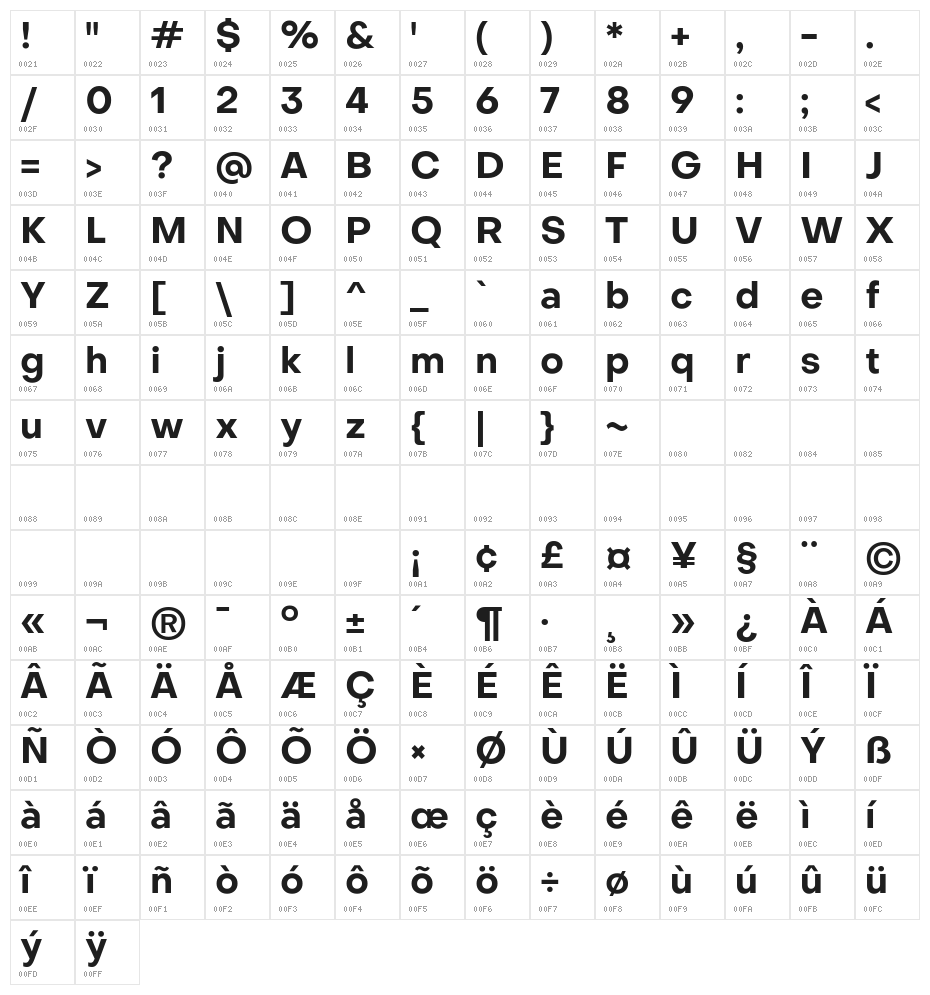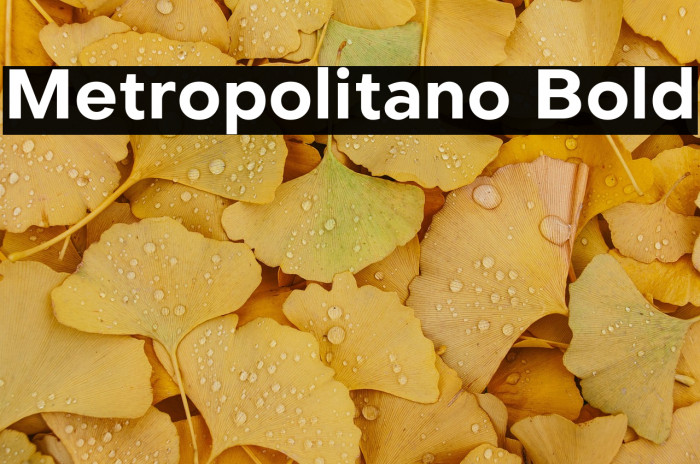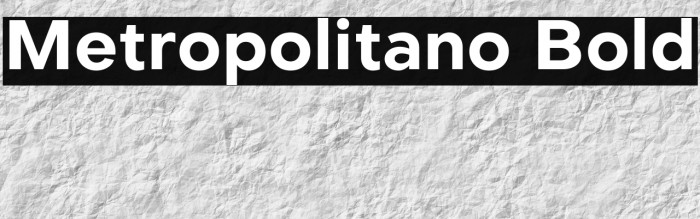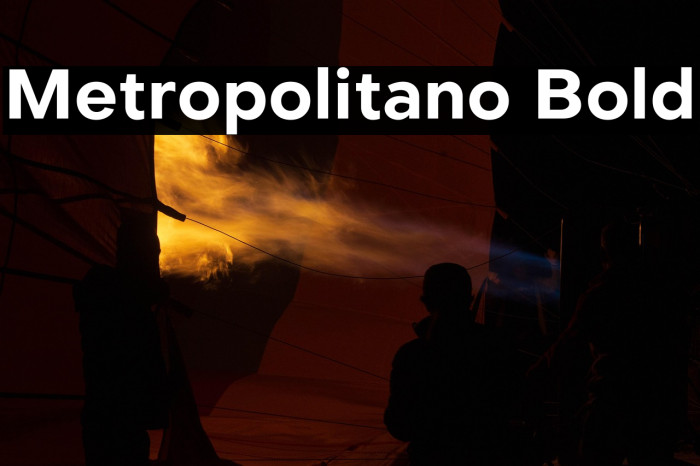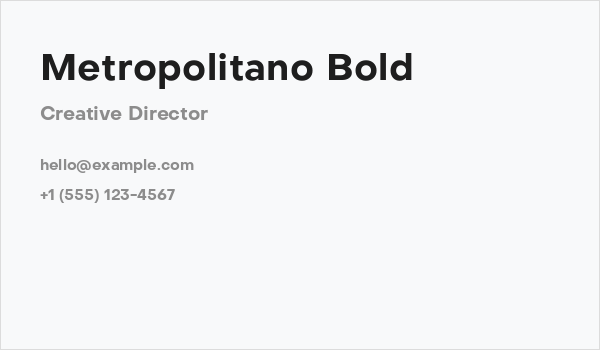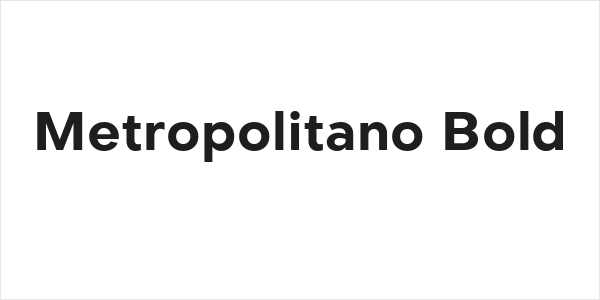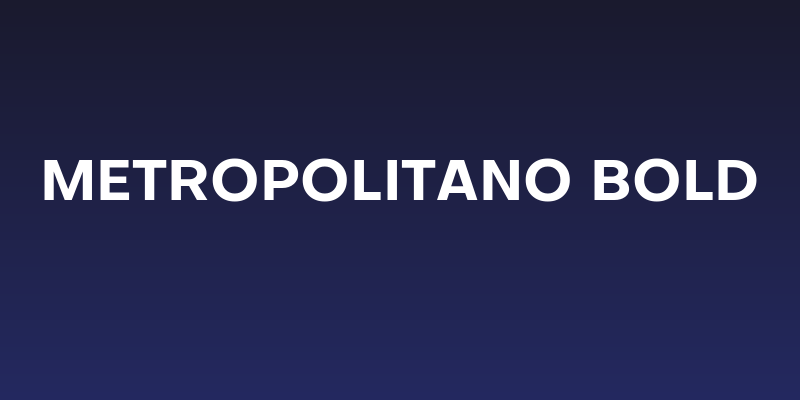
Metropolitano Bold Font
Metropolitano Bold Description
This font features a bold and modern sans-serif style with clean lines and a strong presence. The uppercase and lowercase letters are well-proportioned, offering a harmonious balance that enhances readability. The numerals are clear and distinct, making them suitable for various applications. Special characters are included, providing versatility for different design needs. The overall appearance is sleek and contemporary, making it ideal for projects that require a professional and polished look.
| Use Case | Headlines, Logos, Digital interfaces |
| Proposed Projects | Ideal for branding, advertising, headlines, and digital interfaces. |